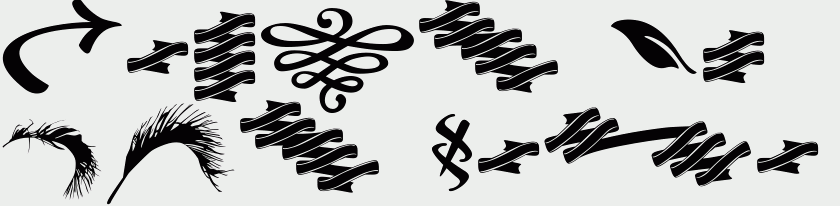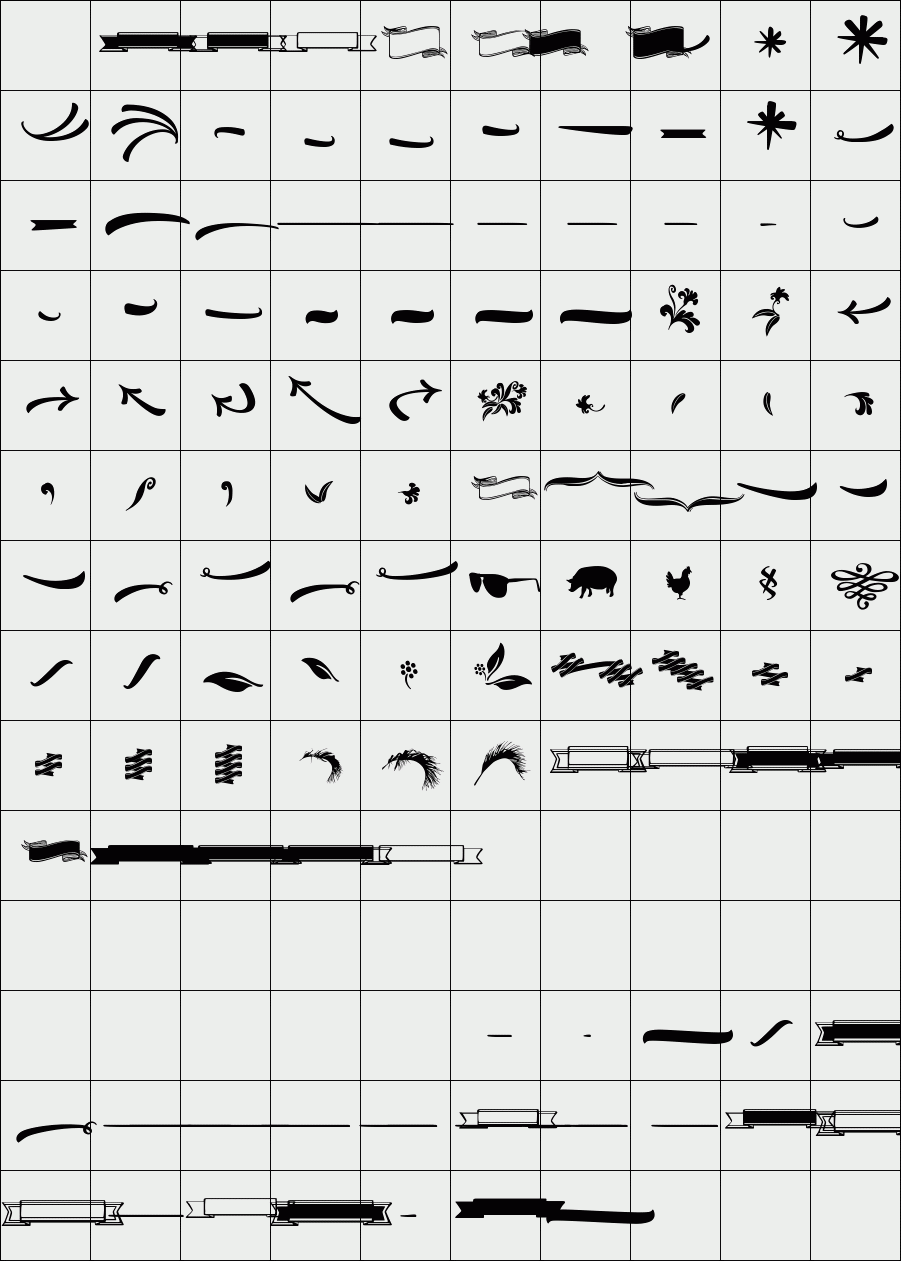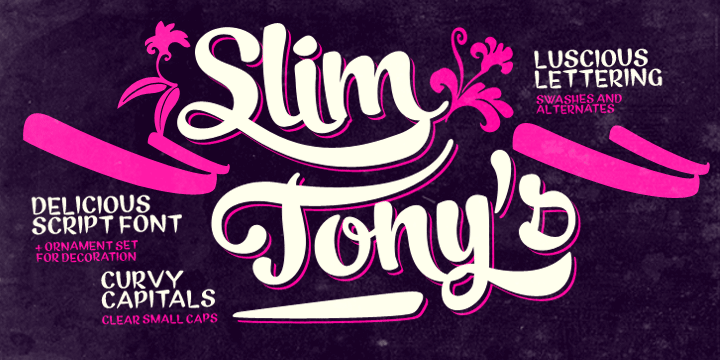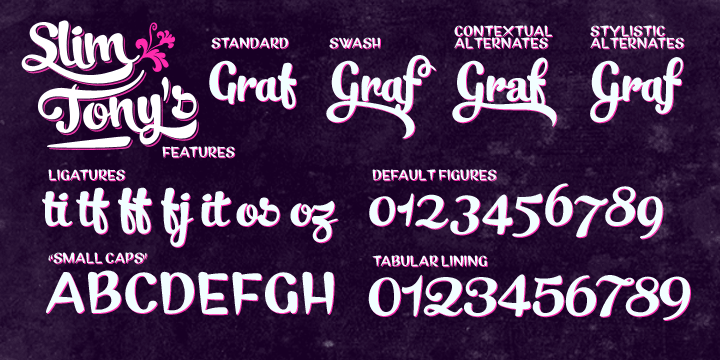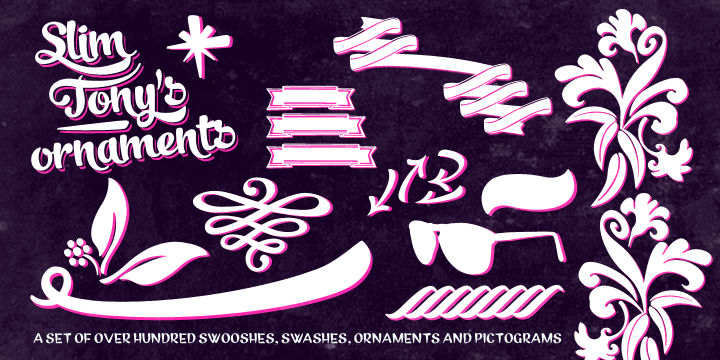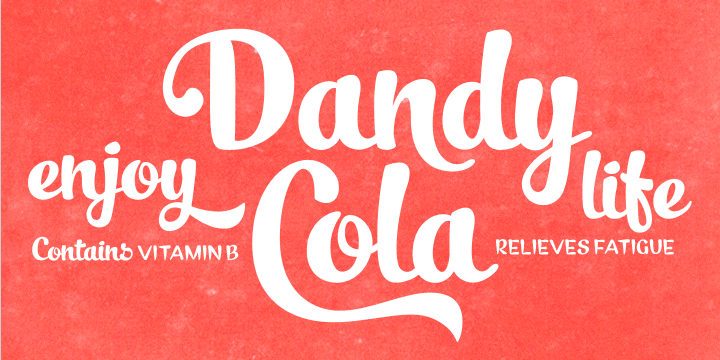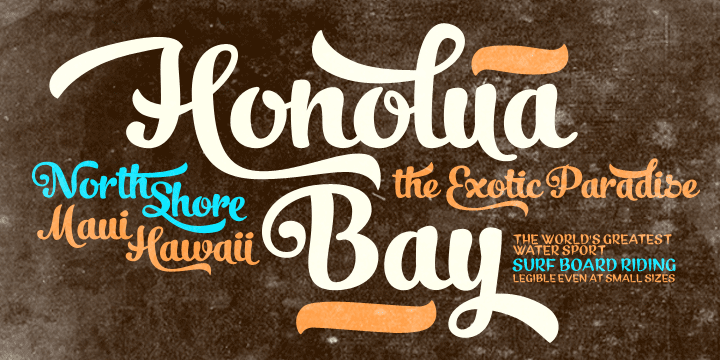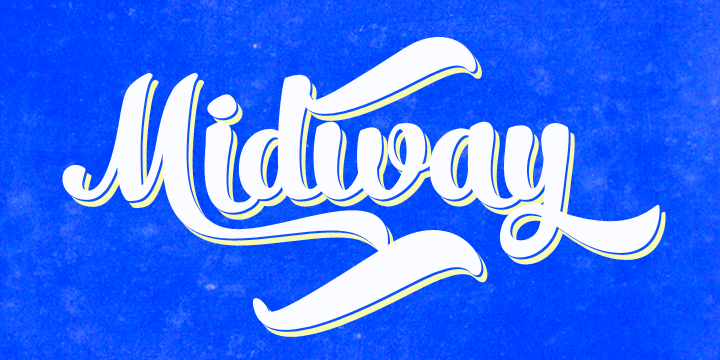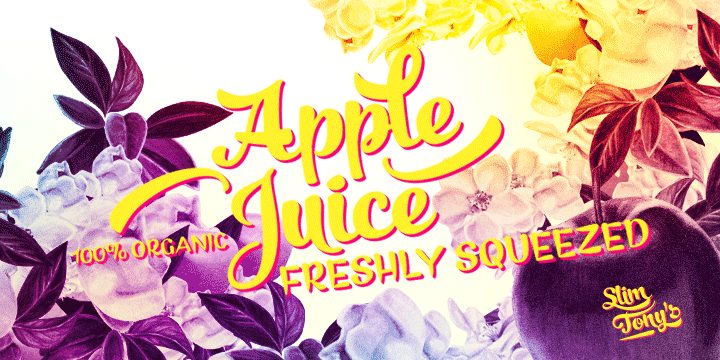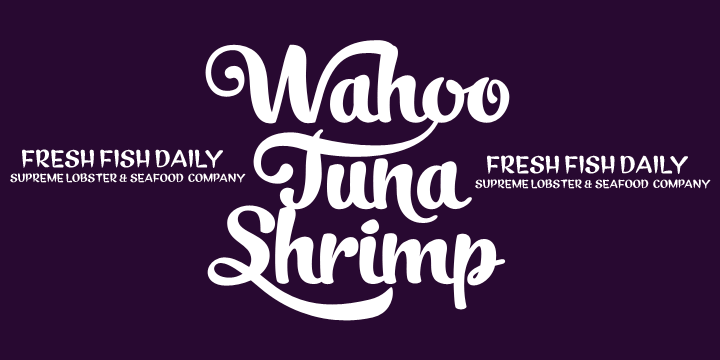
Slim Tony
/ Slim Tony Ornaments
Slim Tony is a delicious script font. Tony is a distant relative of Mishka but much bolder and more extravagant. Slim Tony works superbly for custom headlines and logotypes. Turn on Swash, Stylistic or Contextual Alternates for some serious extra kick. Activate small caps for clear capital letters designed to work perfectly with the script. Slim Tony’s ornaments is a set of over one hundred swooshes, swashes, ornaments and pictograms.